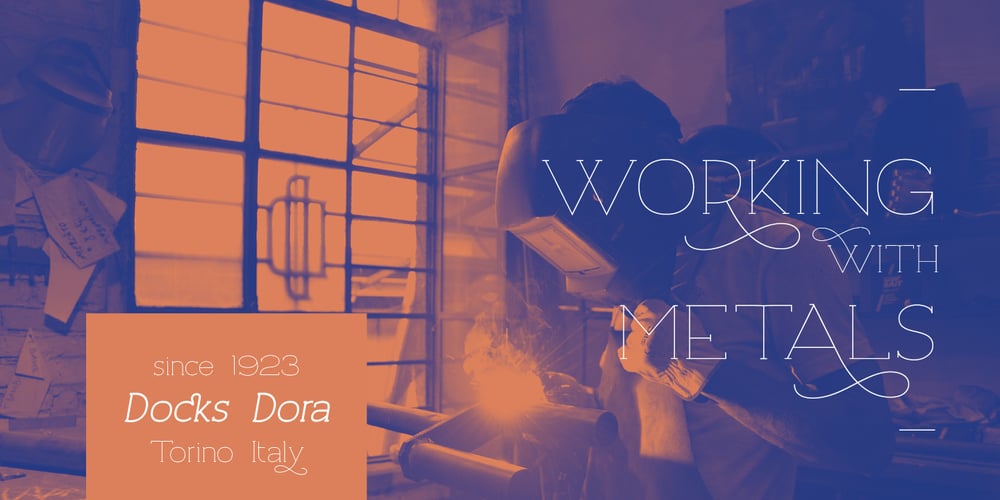
Archivio Font Family was designed by Giuseppe Salerno and published by Resistenza. Archivio contains 48 styles and family package options. Archivio is a neutral font family based on the sans-serif typefaces of the early 20th century. Geometric letter forms are combined with some humanist touches creating a clear and legible typeface. Archivio family includes Sans, Slab, Italic, Back-slant and other experimental versions. Manually edited kerning and Opentype features with amazing swashes, alternates and beautiful ornaments, It was designed for display and text usage.